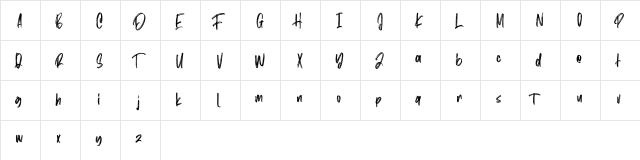
Mist Sunshine Brush Free Regular
Design Context for Mist Sunshine Brush Free Typeface
Mist Sunshine Brush Free brings a calligraphic fluidity to the page — its connecting strokes and expressive curves give it an unmistakably human quality.
Font Pairing: Combine Mist Sunshine Brush Free with a simple geometric sans for maximum contrast — the tension between flowing curves and clean structure is a classic typographic pairing.
Pro Tip: Use Mist Sunshine Brush Free for short runs of text — names, titles, or taglines. Extended body copy in script faces tires the eye quickly.